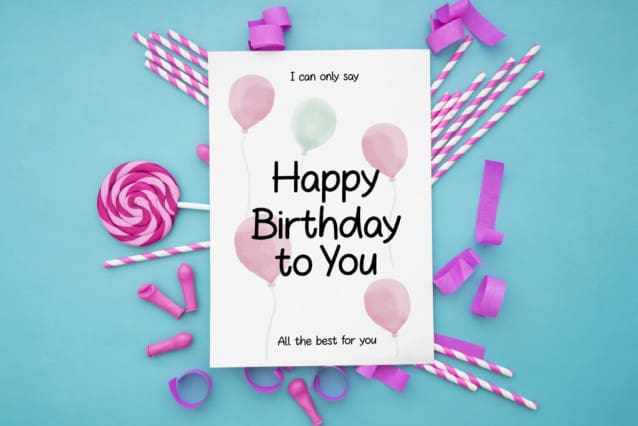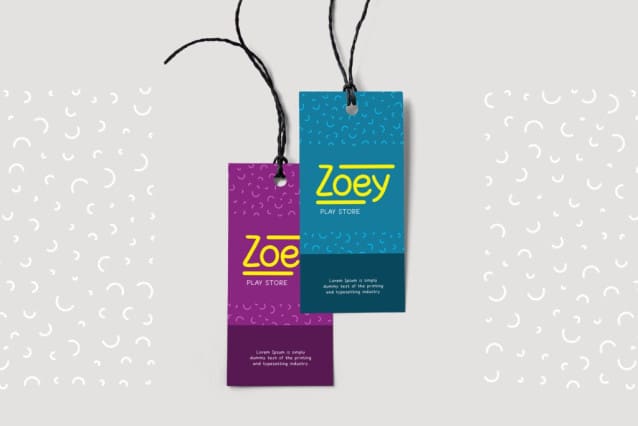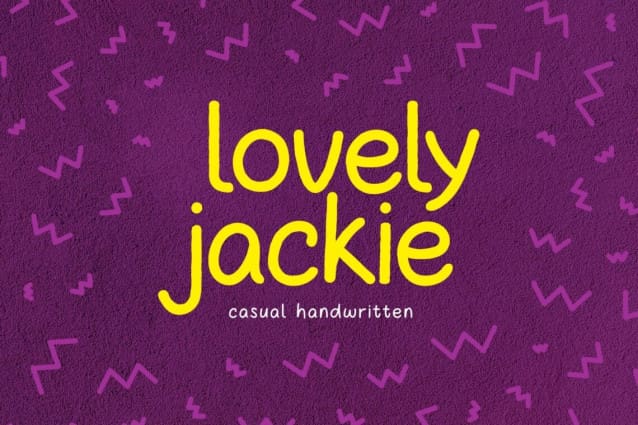
Lovely Jackie Font
Lovely Jackie Font – This font is ideally suited for a wide variety of projects, such as signature, stationery, logo, wedding, typography quotes, magazine or book covers, website headers, clothing, branding, packaging design, and more. Also, fashion-related branding or editorial design displays both masculine and feminine qualities.